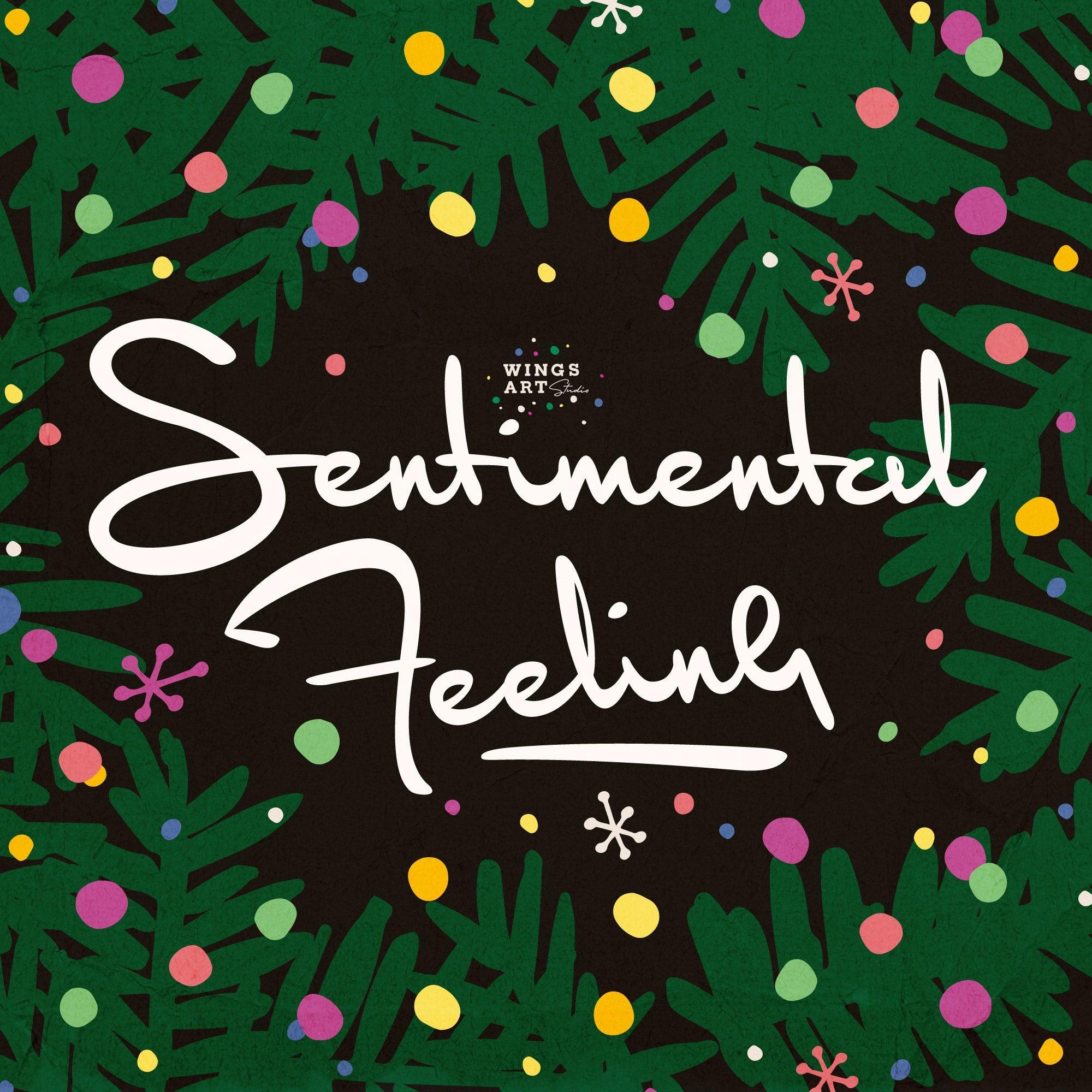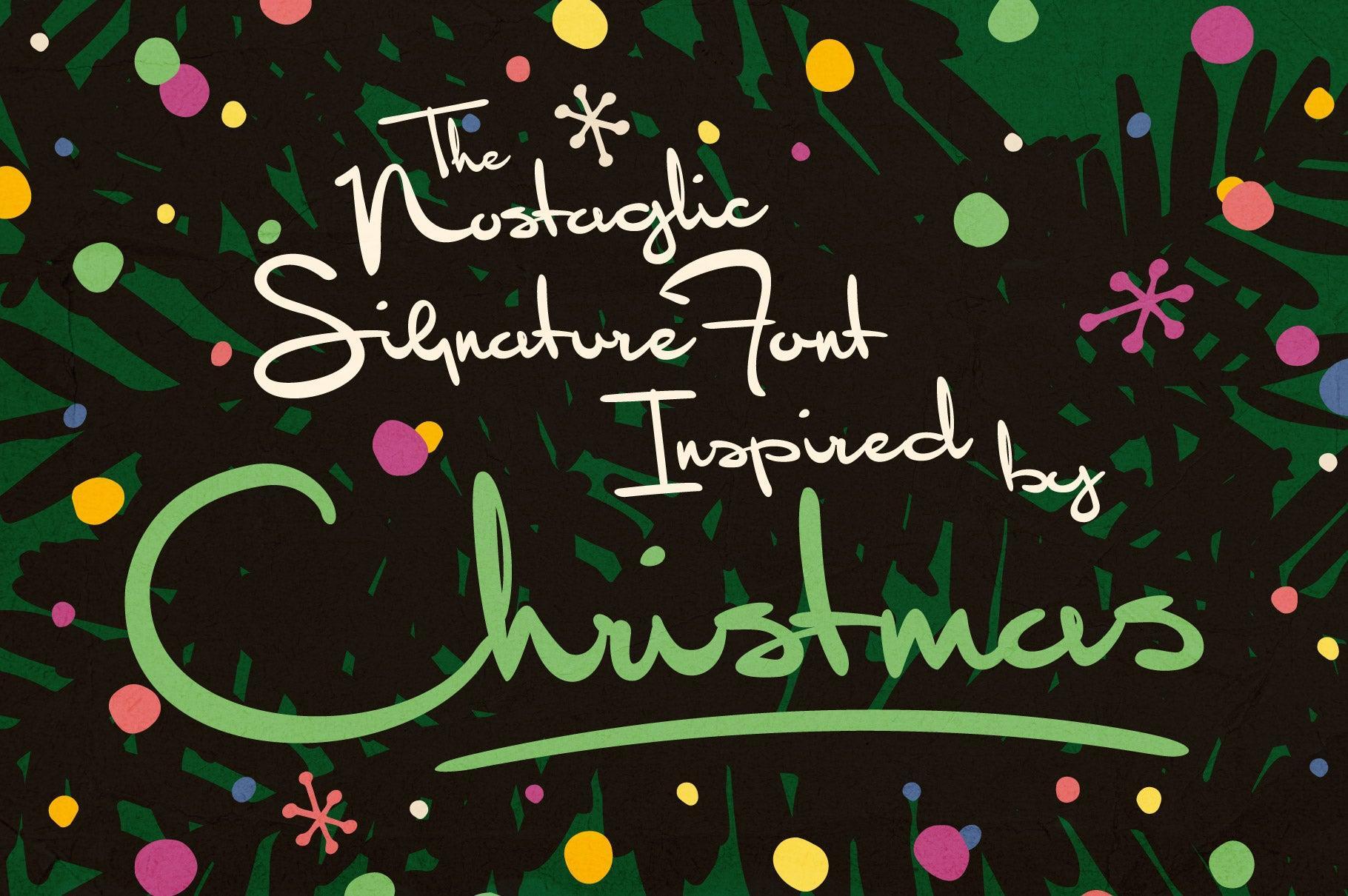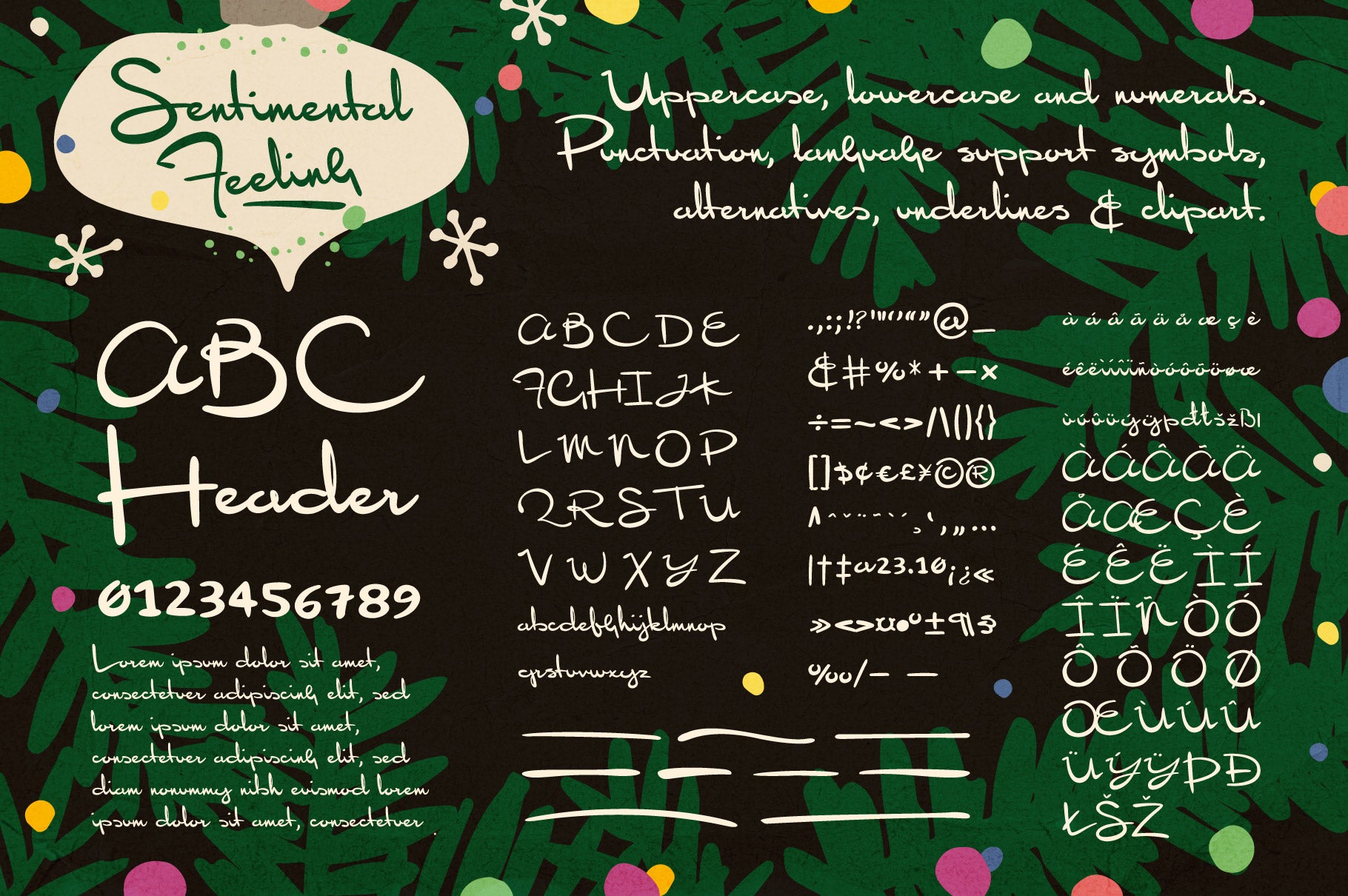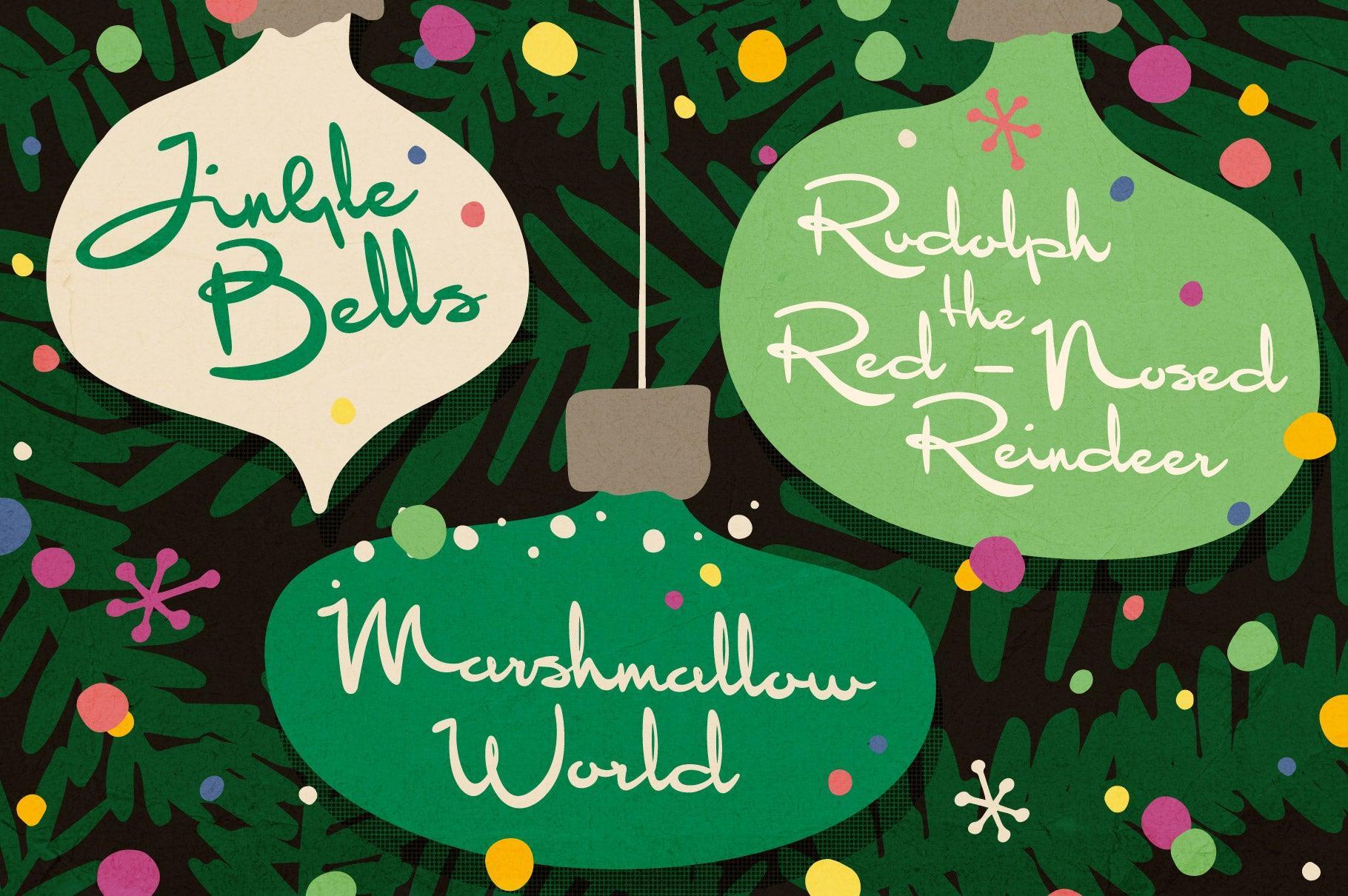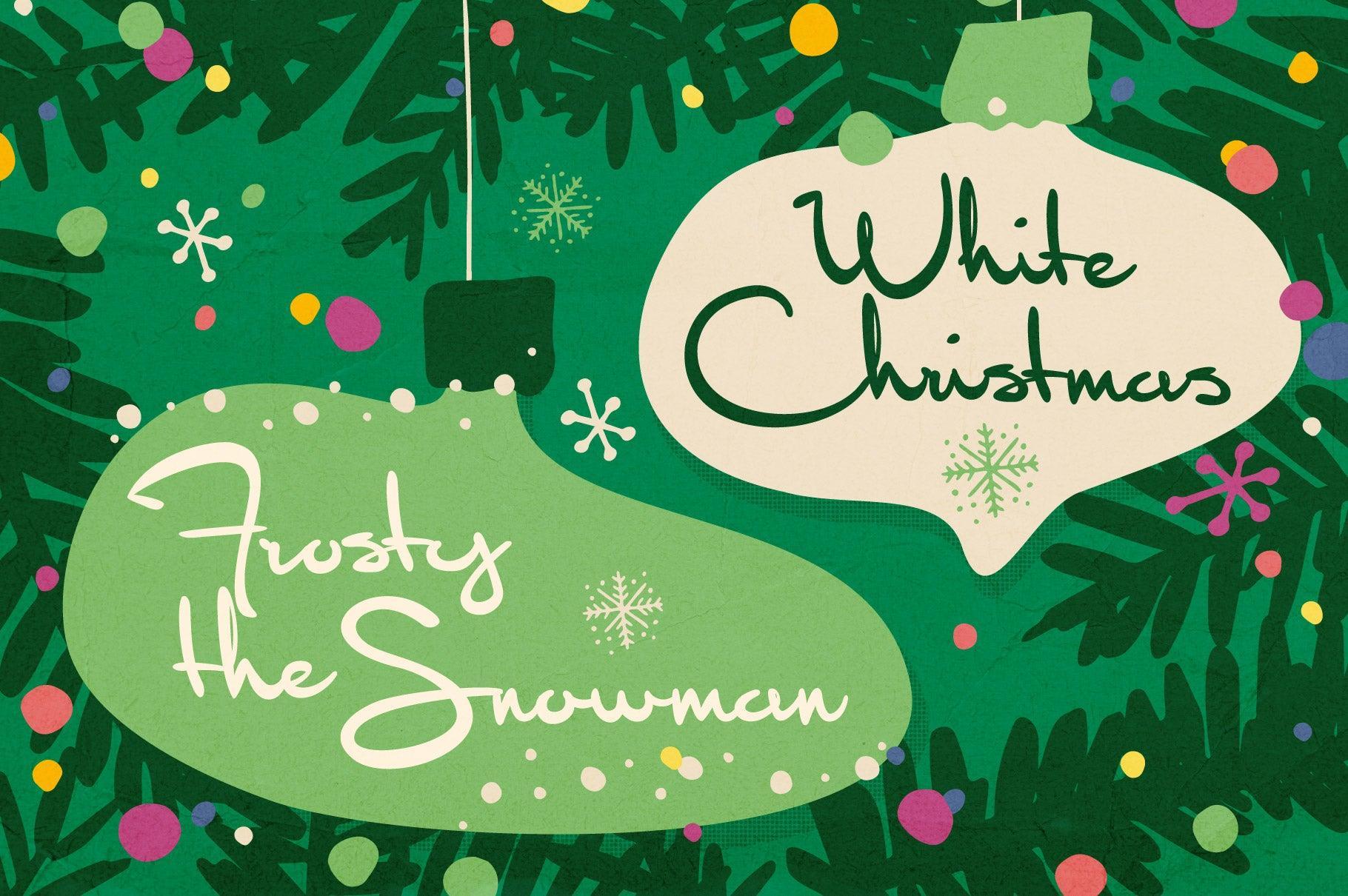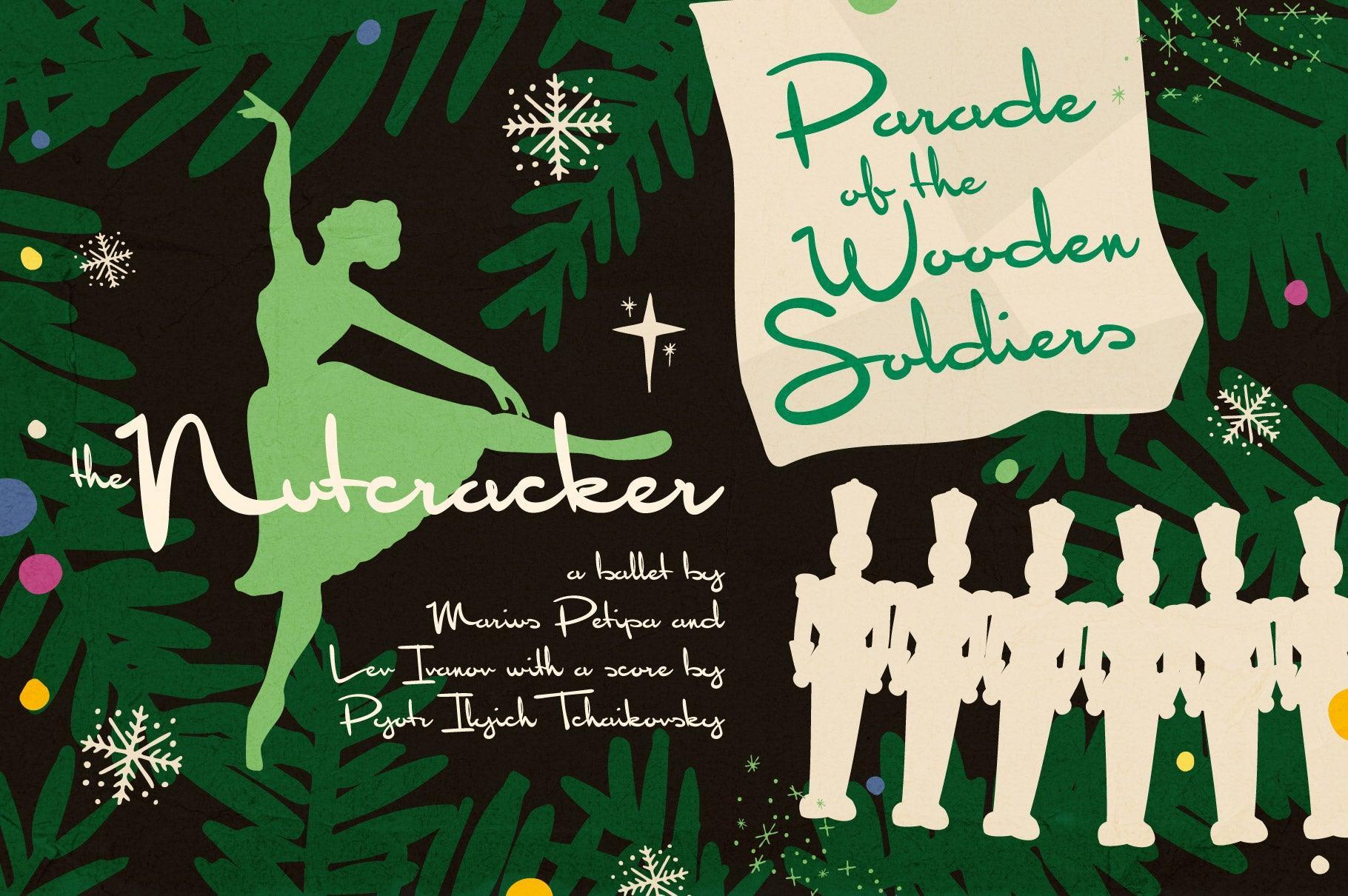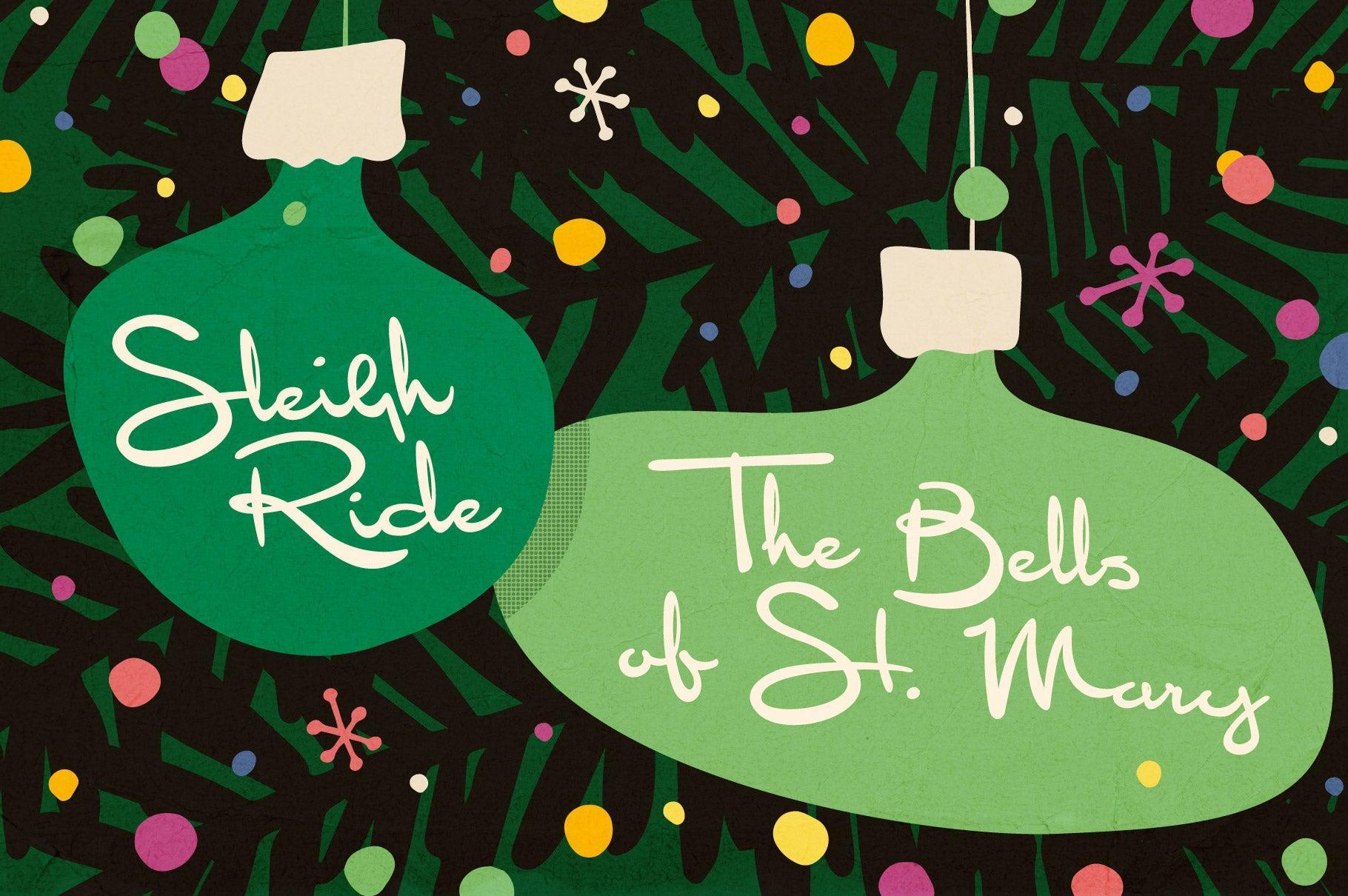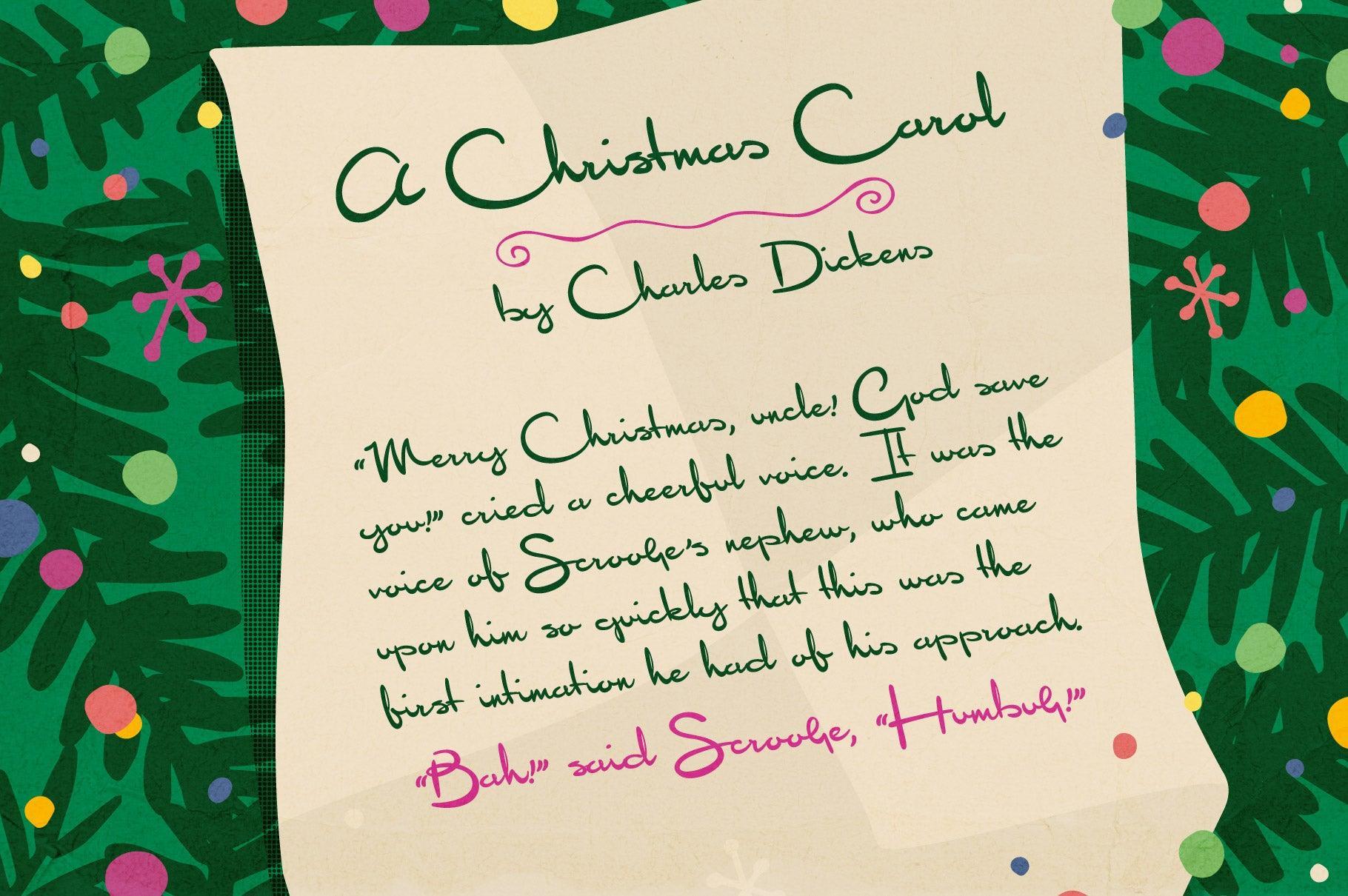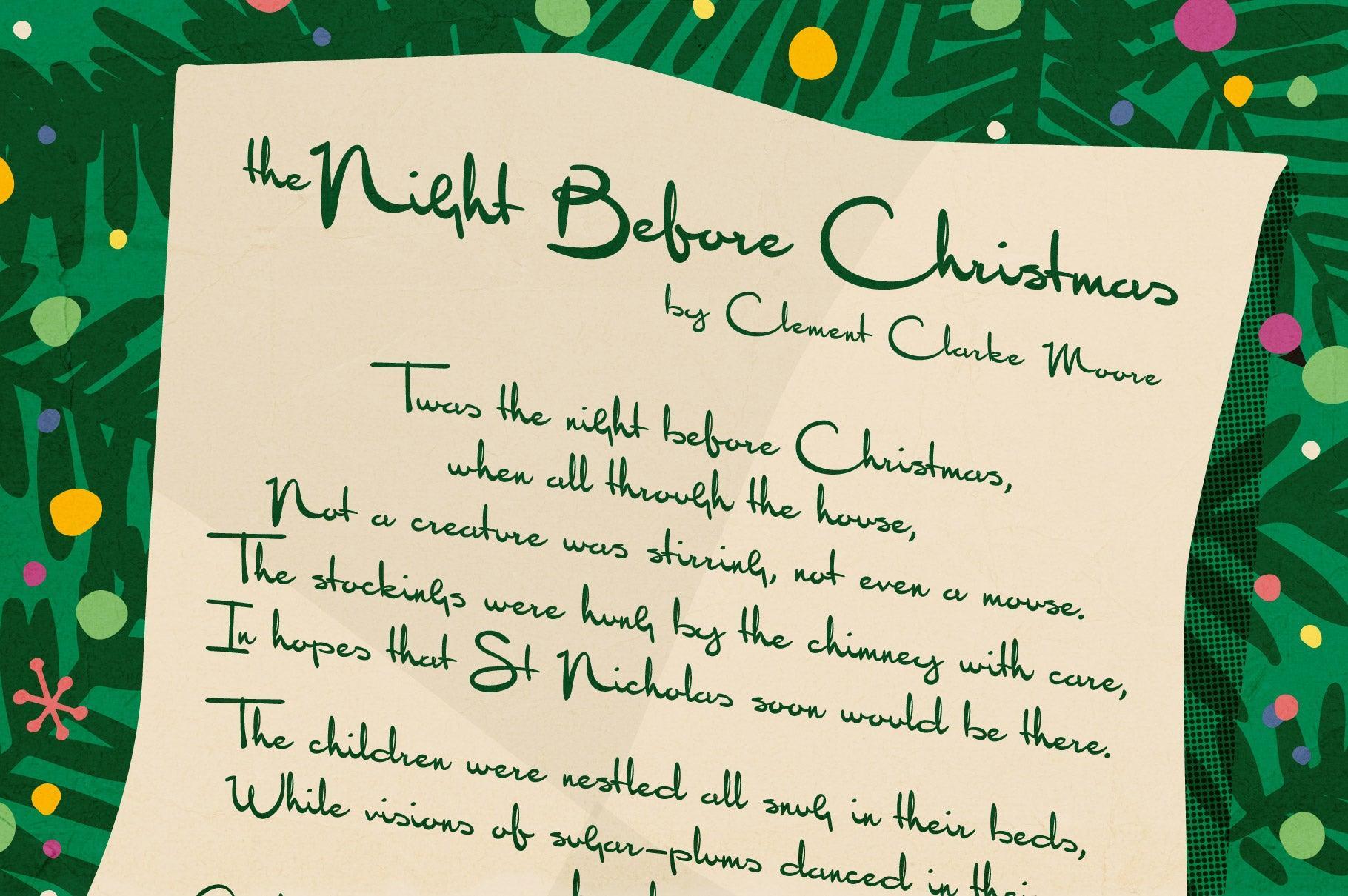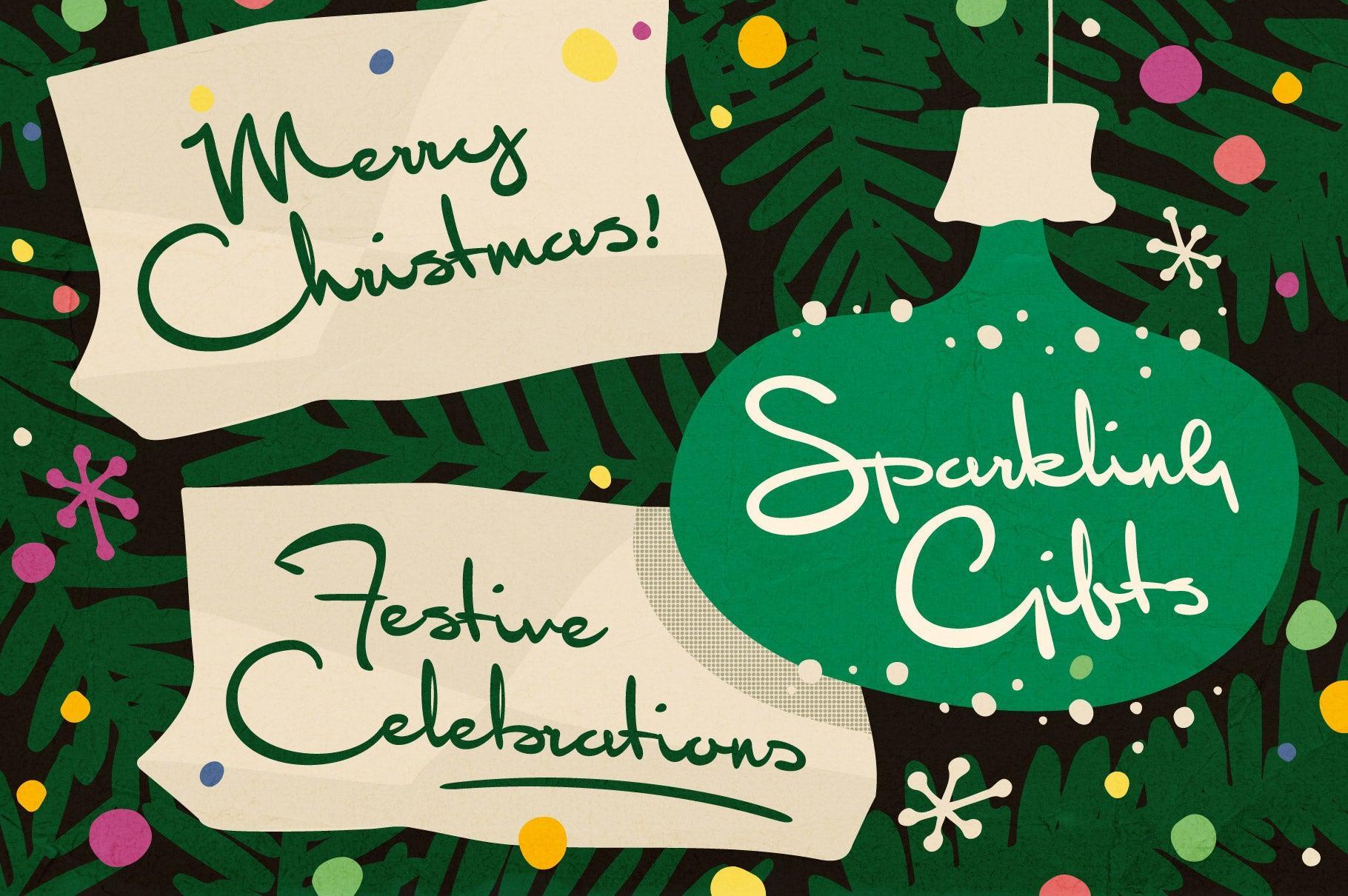
Sentimental Feeling - A Nostalgic Hand-Written Christmas Font
Sentimental Feeling is a nostalgic hand-written script font designed for Christmas, featuring a retro style inspired by 1950s magazine editorials and classic movies. It includes a complete set of uppercase and lowercase characters, numerals, punctuation, language support, symbols, alternatives, custom ligatures, underlines, and festive clipart, making it suitable for a variety of holiday design projects.
Ideal for nostalgic holiday-themed design projects. Perfect for creating festive stationery, Christmas cards, and seasonal advertisements, ensuring a warm, retro aesthetic that captures the spirit of the season.